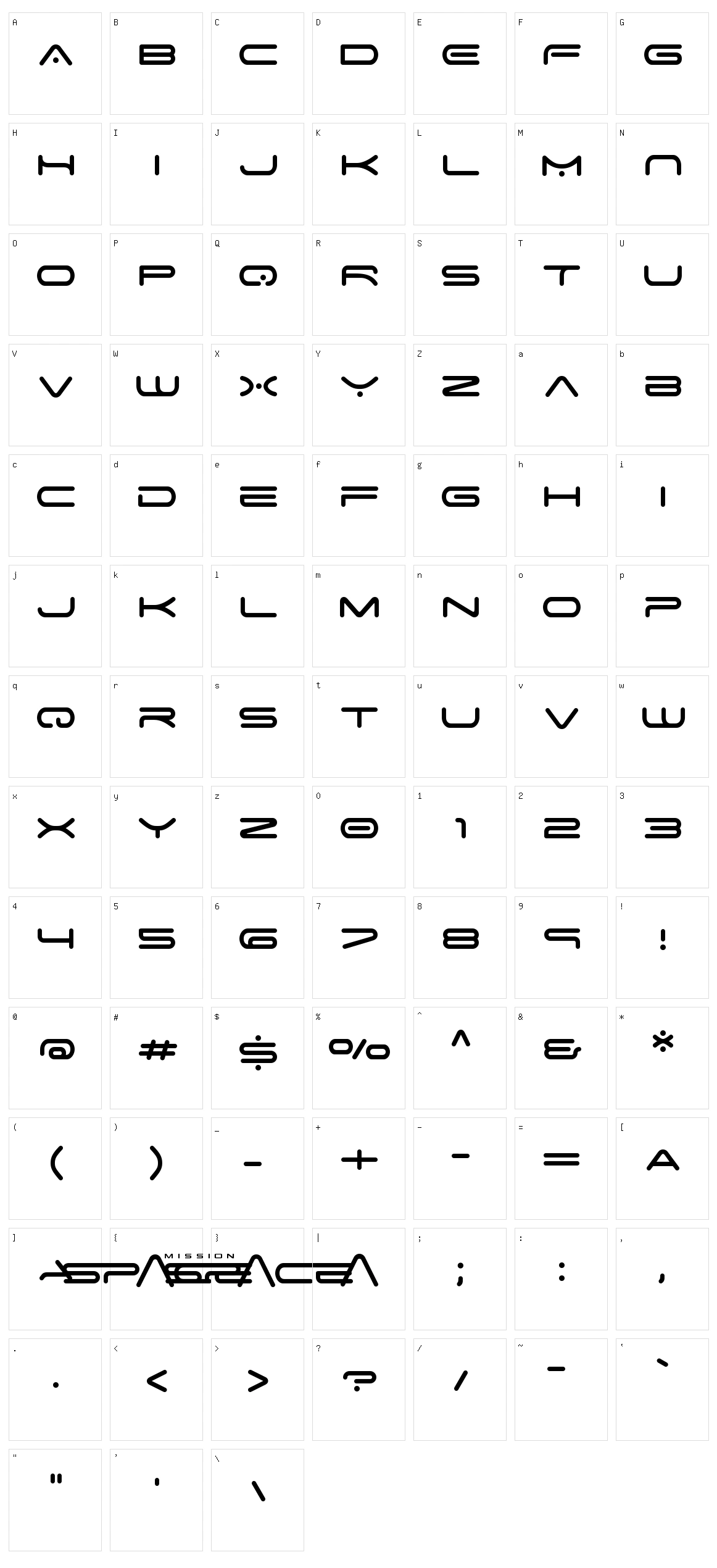
Space Age
Designed by: Justin Callaghan
SPACE AGE is an original font based on the logotype for Epcot's "Mission: Space" attraction. Version 1.0 contains capitals, alternate capitals, numerals, most punctuation, and some extended characters.
SPECIAL CHARACTERS
The tilde and underscore characters contain horizontal lines useful for creating ligatures.
To create a ligature connected at the top, use the tilde character ~ (example: s~p).
To create a ligature connected at the bottom, use the underscore character _ (example: c_s).
ALTERNATE CHARACTERS
| (bar): oversize A
[ (left bracket): alternate A
] (right bracket): alternate A
DINGBATS
{ (left brace): SPACE logotype
} (right brace): MISSION: SPACE logotype